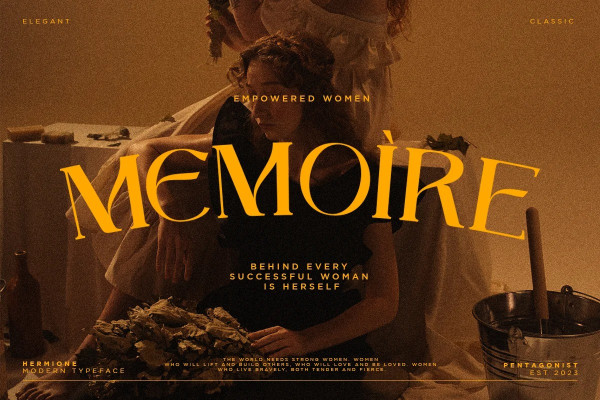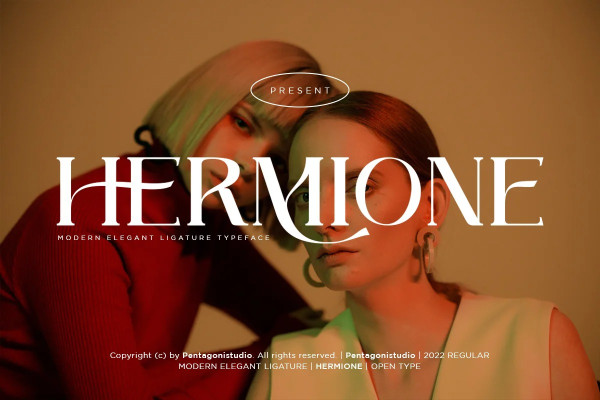
HERMIONE TYPEFACE
Hermione Typeface Is A Modern Serif Font with Stylistic Alternates and Ligatures. This font is perfect for stickers, retro projects, craft projects, shirts, svg designs, procreate designs, branding, blogs, logos, invitations and more!